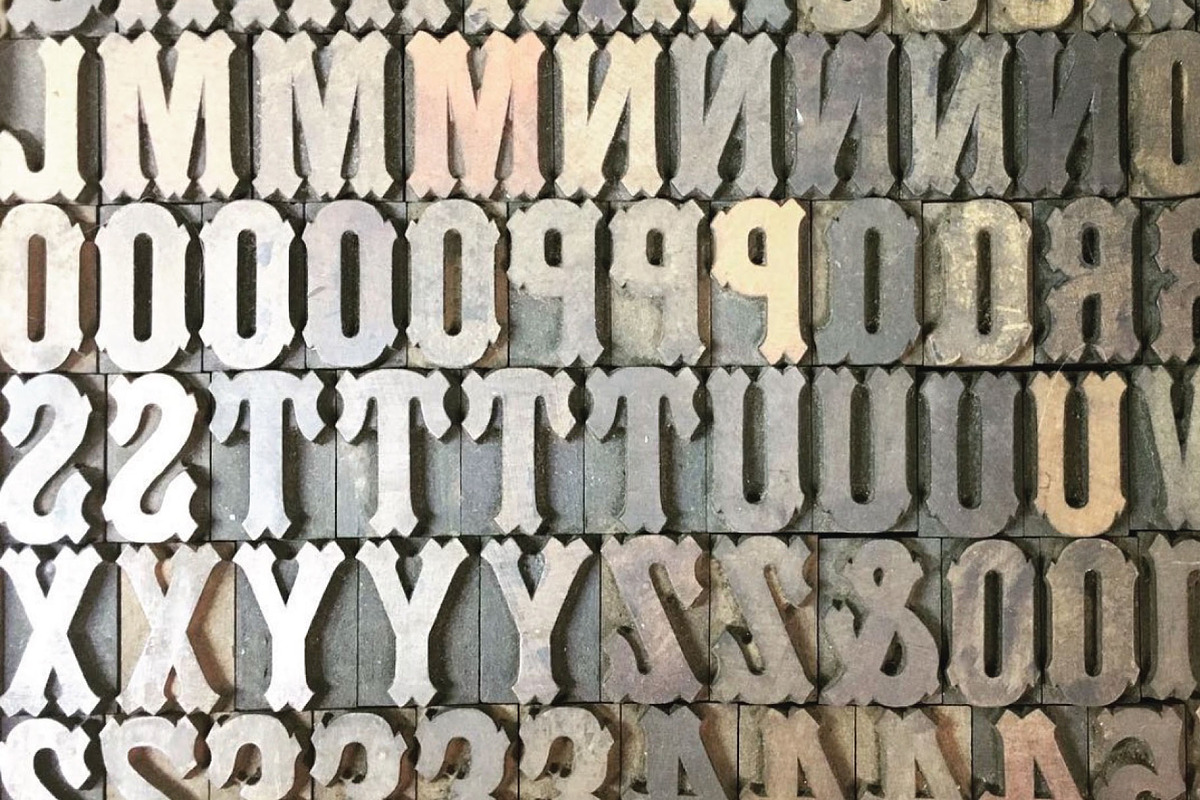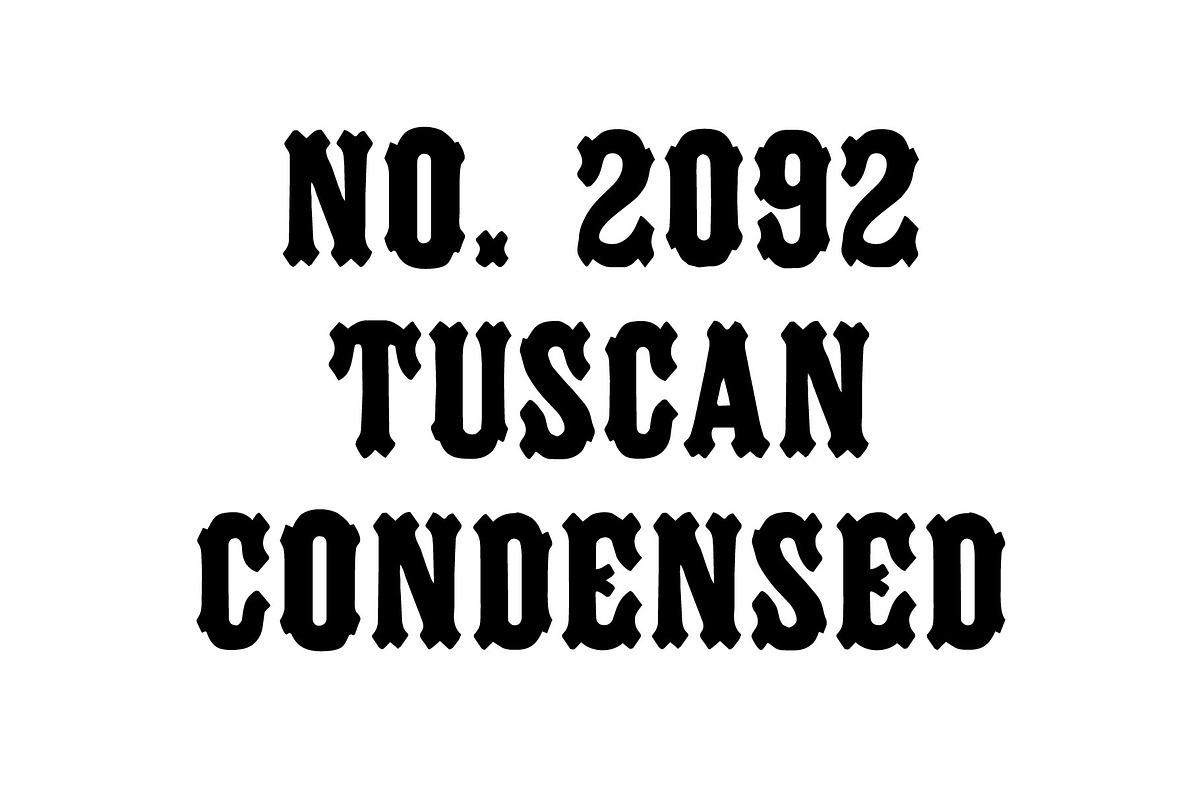
WTR No. 2092 Tuscan Condensed
NOTE: Very Limited Character set.
Based on No. 2092 Tuscan Condensed from the 1904 Tubbs specimen book, this digitization preserves the authentic wear and character of the original wood type. Best for setting a few characters or giving some variety to your designs.